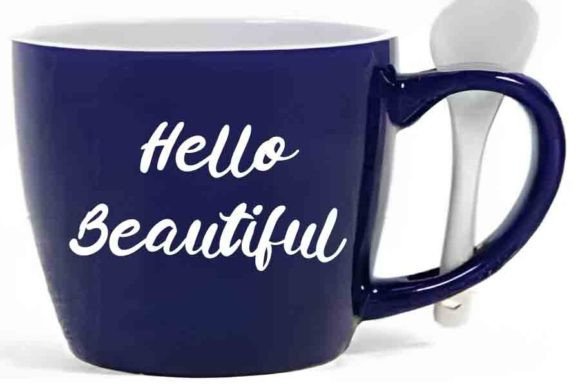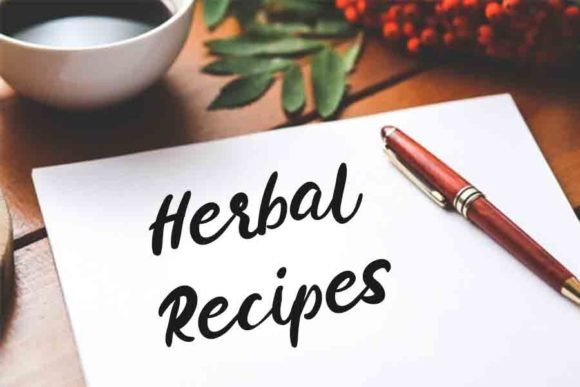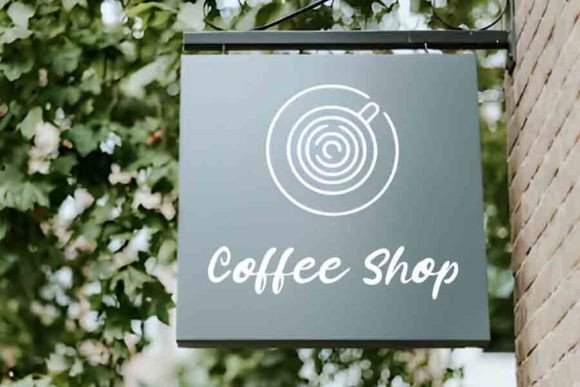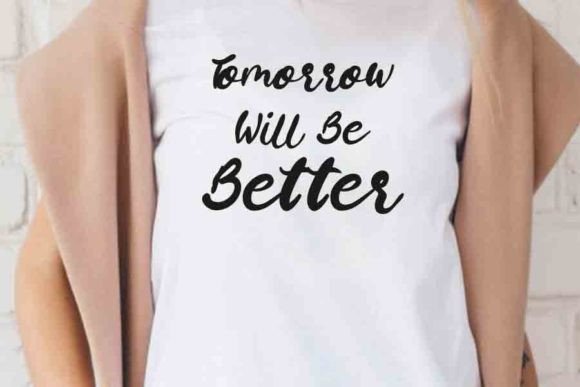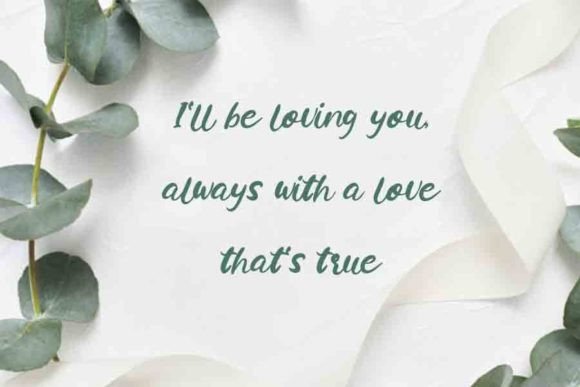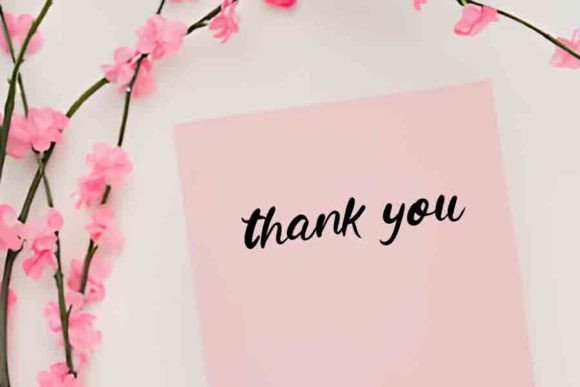
Introduction to Sillicon Font
Have you ever stumbled upon a beautiful script font while working on a creative project, and suddenly, the entire design falls into place? For designers, this moment is pure magic. It’s the spark that ignites a new idea, elevates the mood, and takes the project to the next level. This is exactly what happens when you discover the stunning Sillicon Font.
This bouncy and bold script calligraphy font boasts an elegant and modern touch, making it a design resource that’s hard to resist. Whether you’re working on a wedding invitation, a sublimation project, or a t-shirt design, the Sillicon Font is the perfect addition to bring your creative vision to life.
Key Features of Sillicon Font
- Unique and modern design with a transparent background, making it perfect for creative projects.
- Perfect for use in logos, branding, and other creative projects where a modern and sleek design is required.
- Comes with a comprehensive character set, including Latin, Cyrillic, and Greek alphabets, making it suitable for multi-language designs.
Honest Review: Sillicon Font
As a designer, I’m always on the lookout for high-quality design resources that can elevate my creative projects. Recently, I stumbled upon the Sillicon Font, and I’m excited to share my honest review with you.
- ✨ The Sillicon Font has a sleek and modern design that’s perfect for a variety of creative projects, from logos to brochures.
- ✨ The transparent background option is a great feature that allows for seamless integration with other design elements.
- Limitations:
- ⚠️ The font is only available in a limited number of weights and styles, which may limit its versatility for certain projects.
- ⚠️ The font may not be suitable for projects that require a lot of customization or advanced typography features.
Overall, I’m impressed with the Sillicon Font, but I do have some reservations about its limitations. If you’re looking for a high-quality, free design resource for a creative project, the Sillicon Font is definitely worth checking out. Just be aware of its limitations and adjust your expectations accordingly.
Tips for Getting the Most Out of Sillicon Font
Use the Sillicon Font in combination with other design elements, such as images or graphics, to create a unique and visually appealing design. Experiment with different font sizes and colors to achieve the desired effect. For a high-quality design, use the font in conjunction with a transparent background.
The Sillicon Font is ideal for creative projects that require a modern and sleek design. It’s perfect for use in logos, branding materials, and marketing collateral. You can also use the font in presentations, reports, and other business documents to add a touch of professionalism.
Alternatives to Sillicon Font
Q: Does the Sillicon Font have a transparent background?
No, the Sillicon Font does not have a transparent background. However, you can use the font in conjunction with a transparent background image or design element to achieve the desired effect.
Q: Is the Sillicon Font suitable for high-quality design projects?
Yes, the Sillicon Font is designed to be a high-quality design resource. It features a clean and modern design aesthetic, making it perfect for a wide range of creative projects, from logos and branding to web design and print materials.